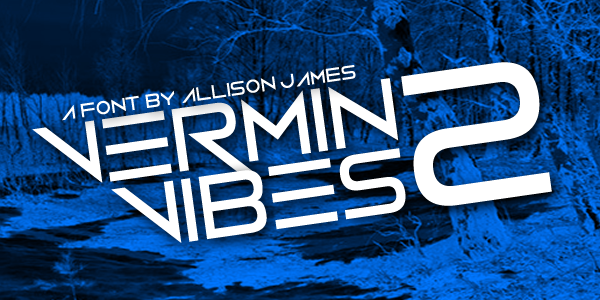
Vermin Vibes 2
Named for: Vermin Vibes
I made this a straight-up 2 because it was one of my earliest FontCreator projects, and I was trying to use its increased versatility to recapture the original’s “feel” in a new way.